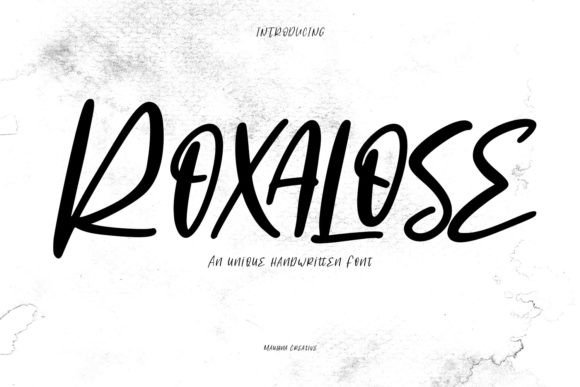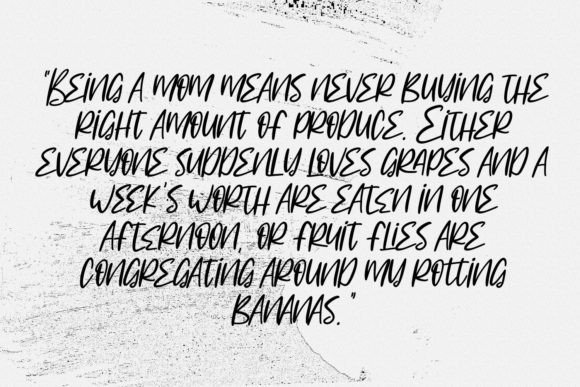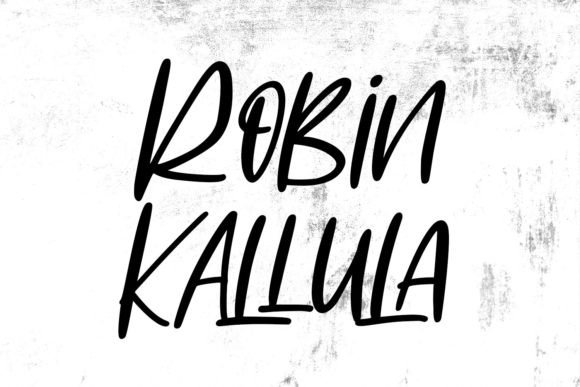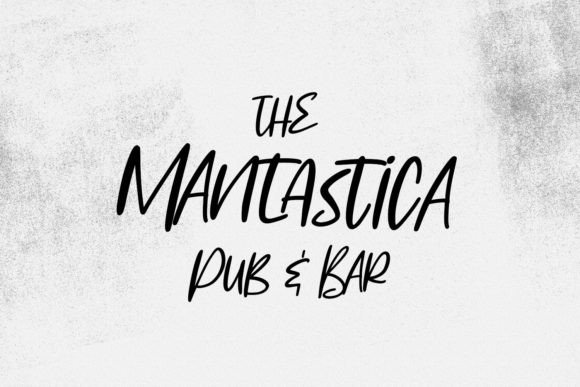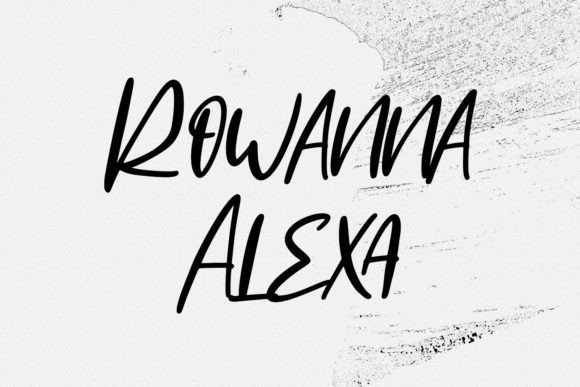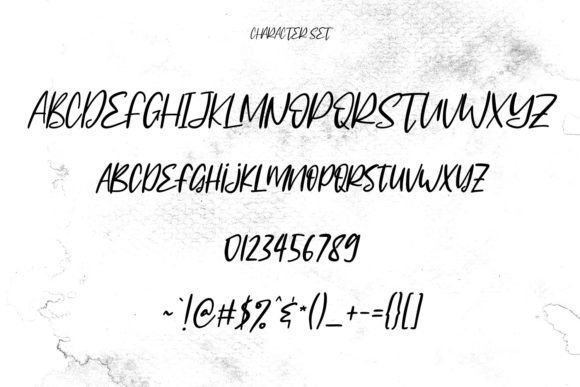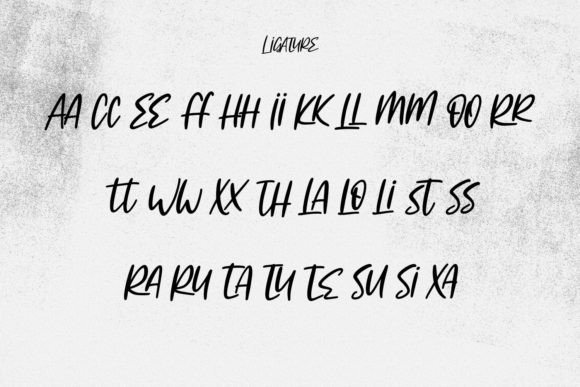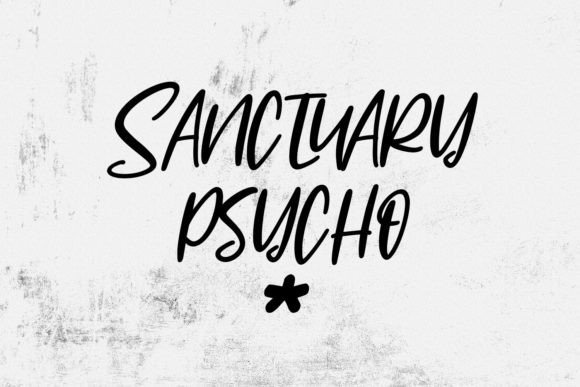
Roxalose Font
Roxalose Font: Playful Handwriting for Whimsical Designs
“Roxalose” is a charming handwritten script font that adds a unique and playful flair to your design projects. Its distinctive appearance makes it perfect for various creative applications, from letterheads to stationery.
Key Features of Roxalose Font
• Whimsical Style: Roxalose brings a sense of fun and quirkiness to designs.
• Versatile Use: Suitable for many projects, including letterheads and titles.
• Original Look: Stands out with its unconventional charm.
Letterheads and Titles
Roxalose’s playful style is ideal for creating eye-catching letterheads and titles that capture attention.
Stationery Design
Use Roxalose to design unique and personalized stationery items, adding a touch of creativity to your correspondence.
Creative Branding
The font’s quirky nature makes it perfect for brands looking to convey a fun and approachable image in their logo designs and marketing materials.
Why Choose Roxalose Font?
Roxalose offers more than just playful letters. Here’s why it stands out:
• Adds a unique and original flair to designs
• Helps create memorable and engaging visuals
• Versatile enough for both personal and professional projects
By using Roxalose, you open up new design possibilities. Its whimsical style works well in many contexts, from greeting cards to poster designs. The font’s ability to convey playfulness can inspire creative ideas and help you approach projects from a fresh perspective.
Roxalose in Digital Design
In the digital realm, Roxalose excels in creating engaging website headers and social media graphics. Its handwritten style can help capture attention and increase engagement on various online platforms, making it a valuable asset for digital marketers and content creators.
If you’re looking for a font that’s both playful and unique, Roxalose is an excellent choice. It’s perfect for adding a whimsical touch to your work, especially for projects that need to stand out with an unconventional charm.
Explore how Roxalose can transform your designs. From personal stationery to creative branding projects, this font brings a fun and quirky quality to your creations.